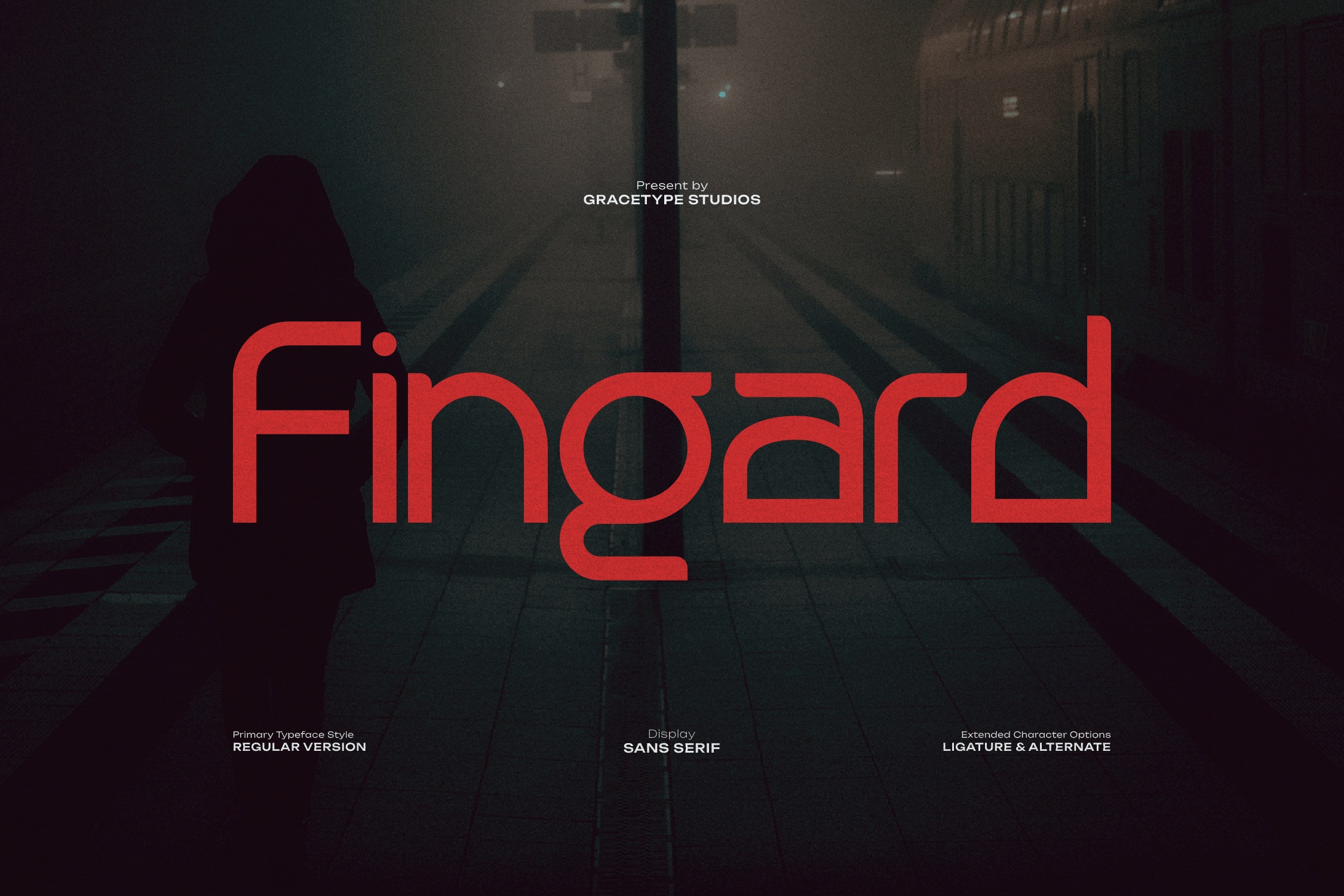
Fingard Font
Fingard Font is a versatile font designed to adapt beautifully across different design styles, offering dependable readability and balance. Fingard | Display Sans Serif, from Gracetypestudio, suitable for any projects such as: logos, branding projects, homeware designs, product packaging, mugs, quotes, posters, shopping bags, t-shirts, book covers, name card, invitation cards, greeting cards, label, photography, watermark, special events, and all your other lovely projects that need a Sans Serif taste.